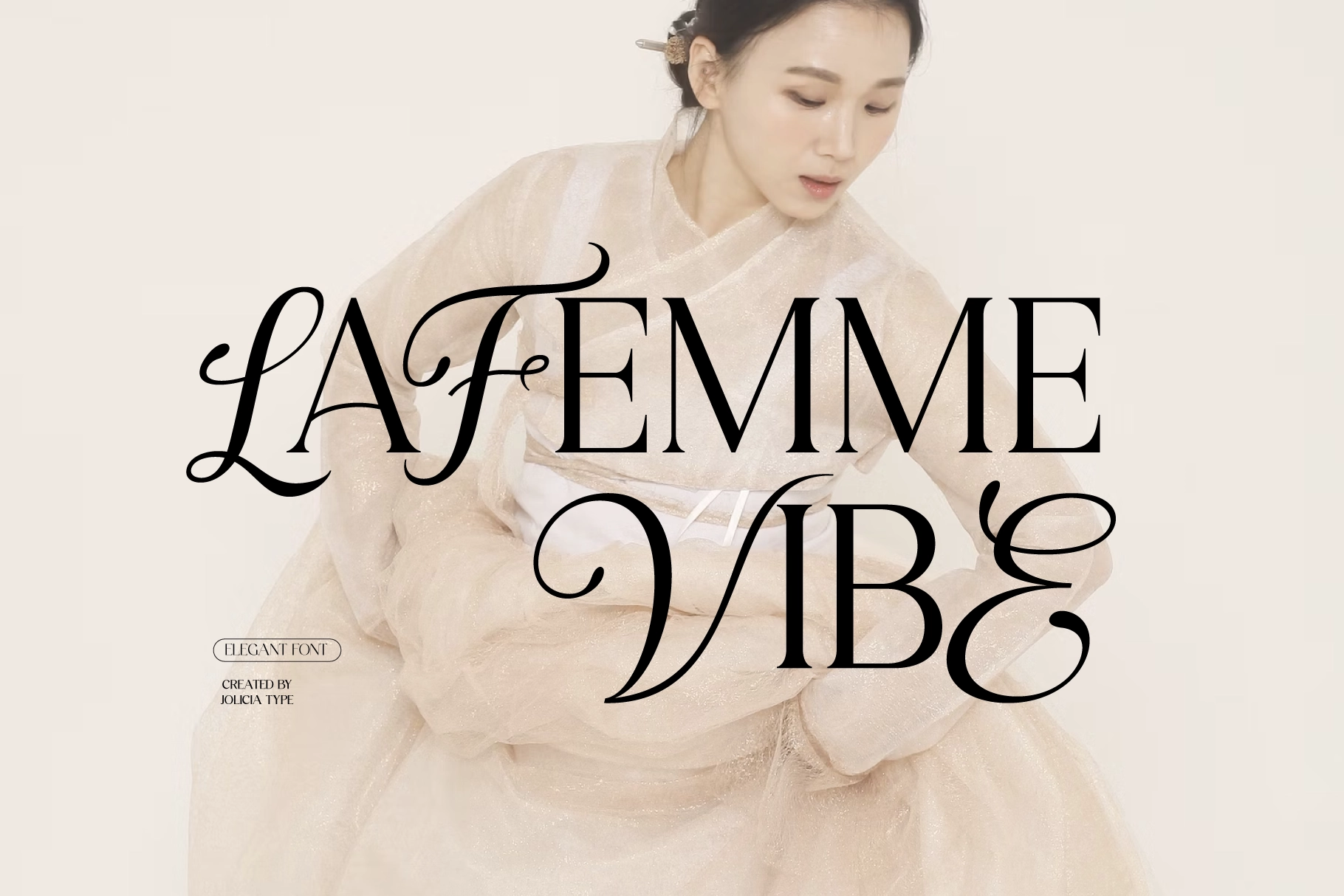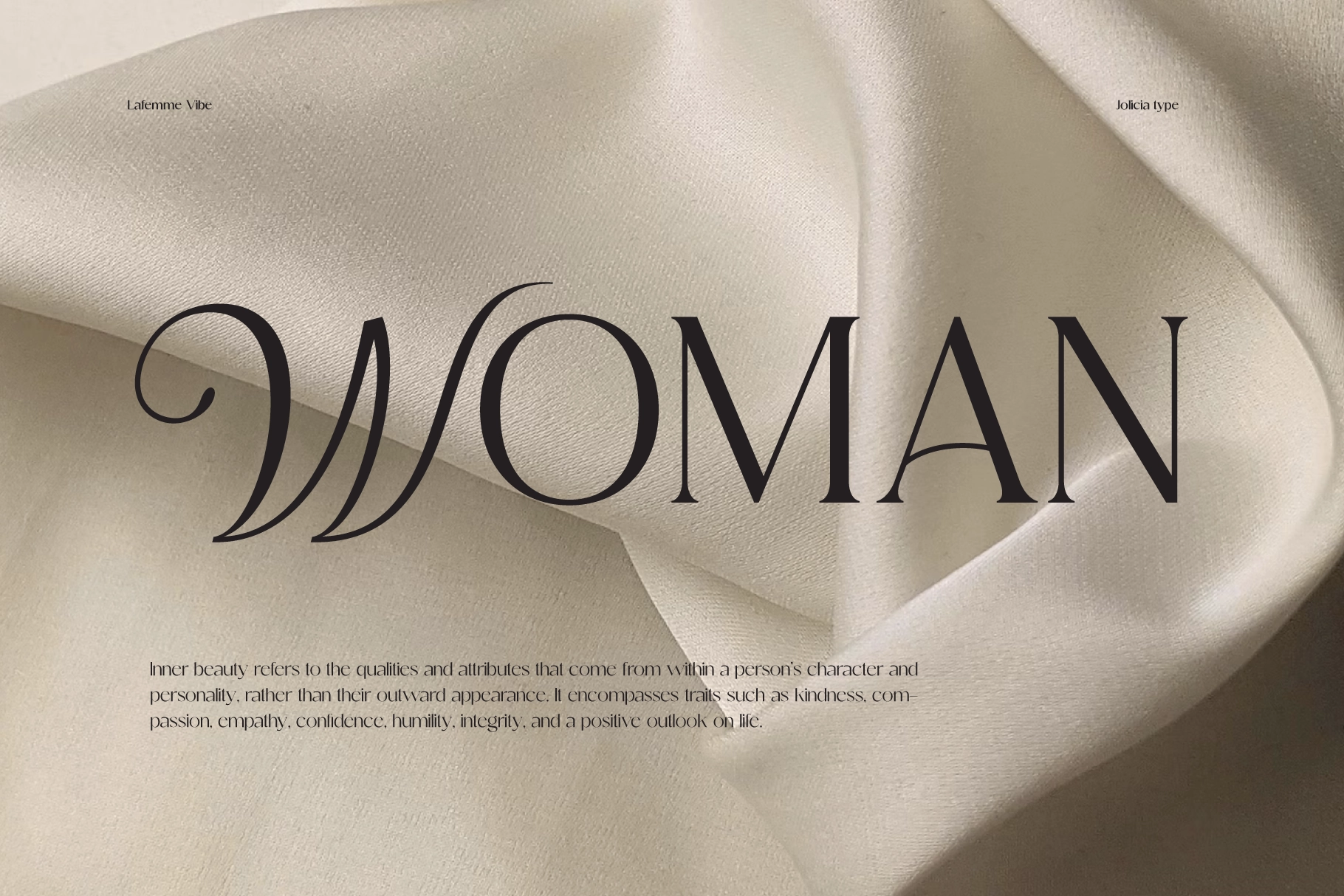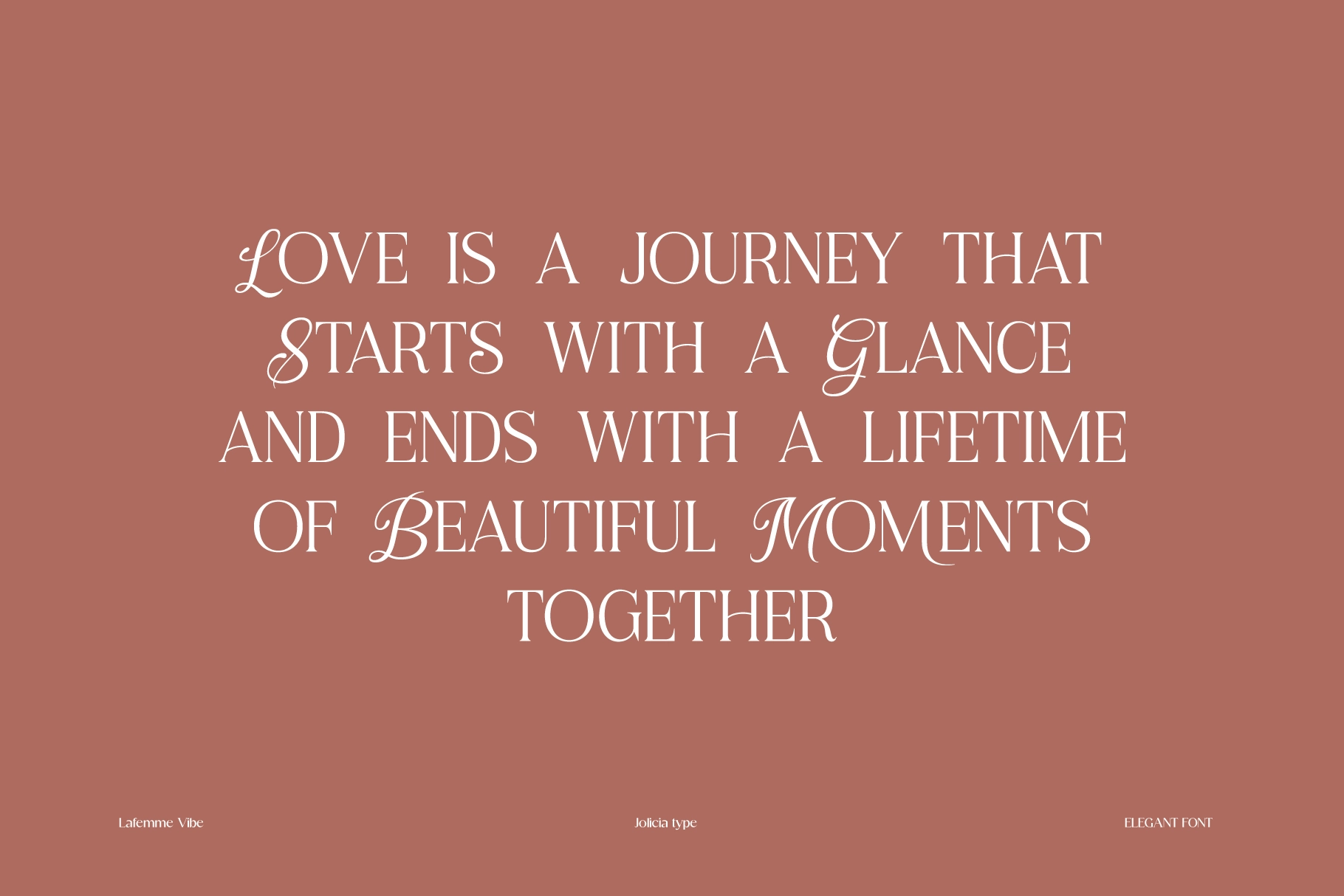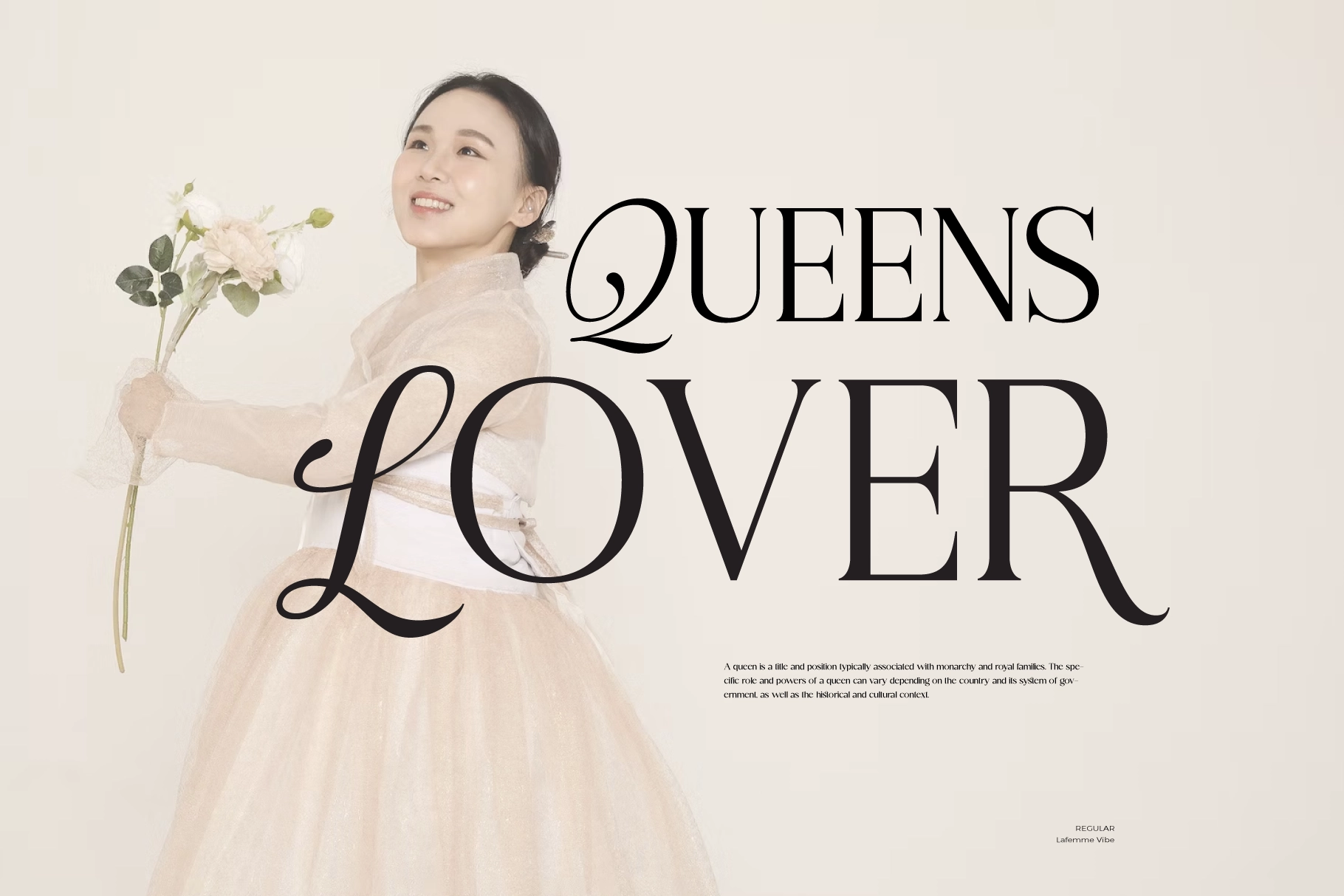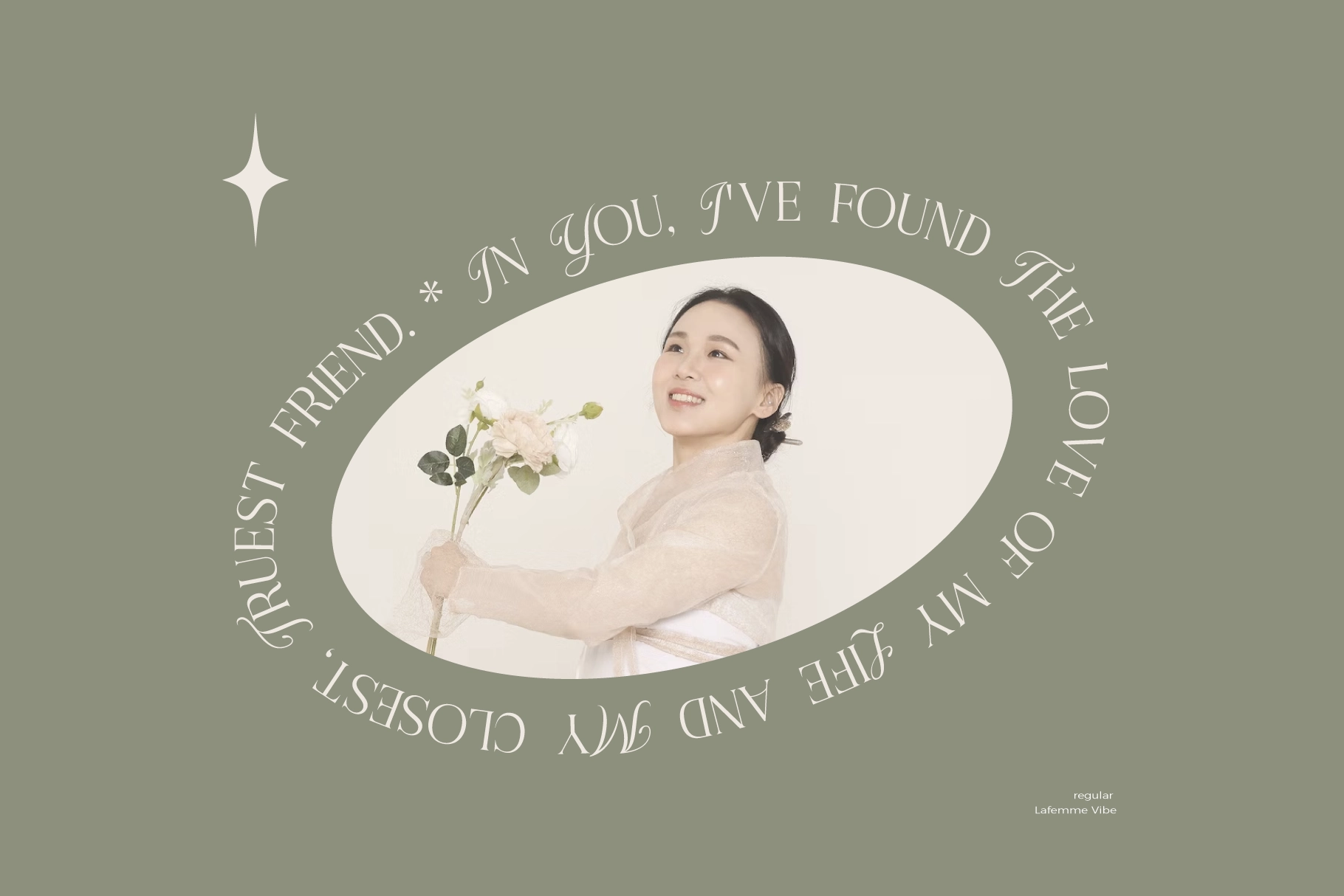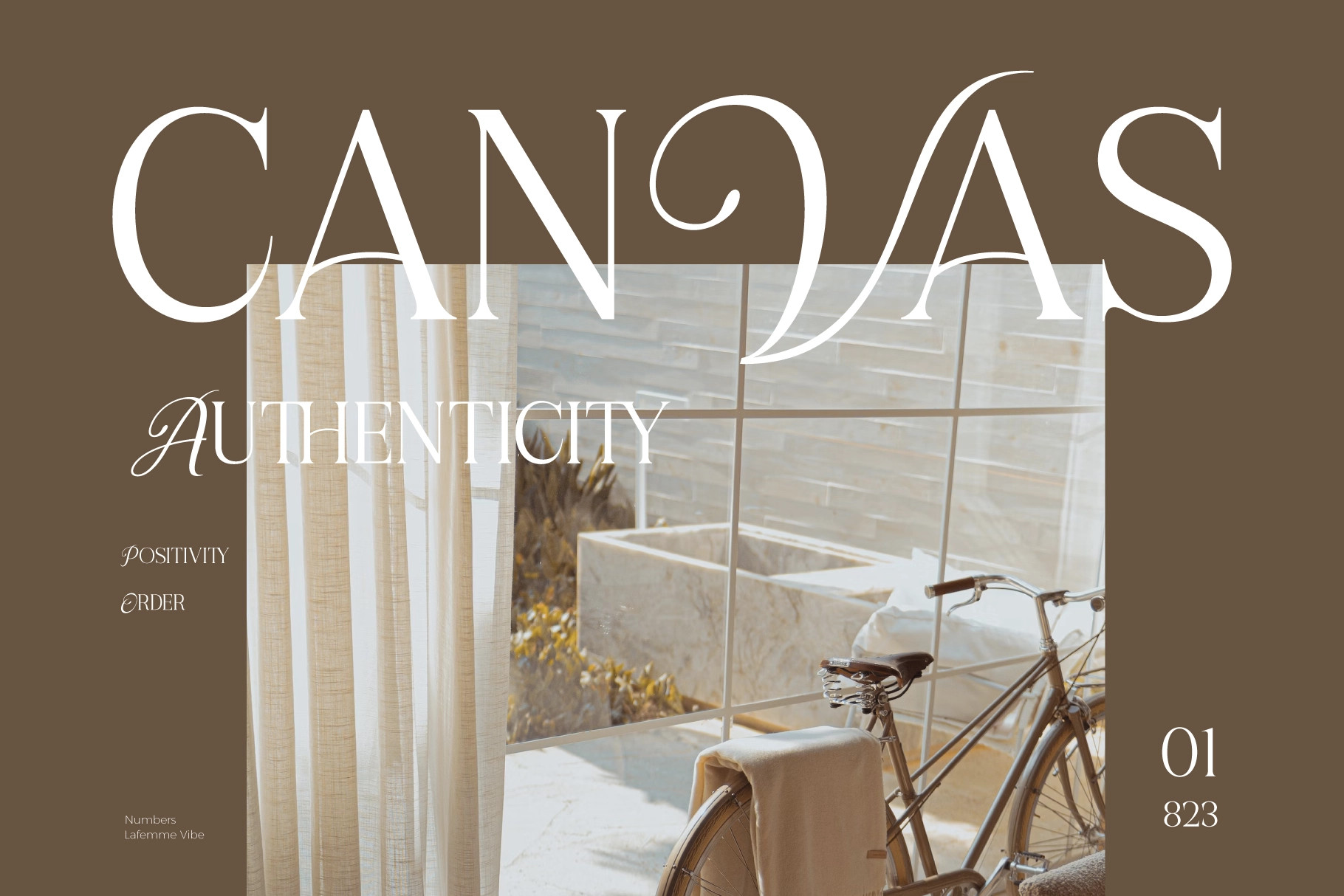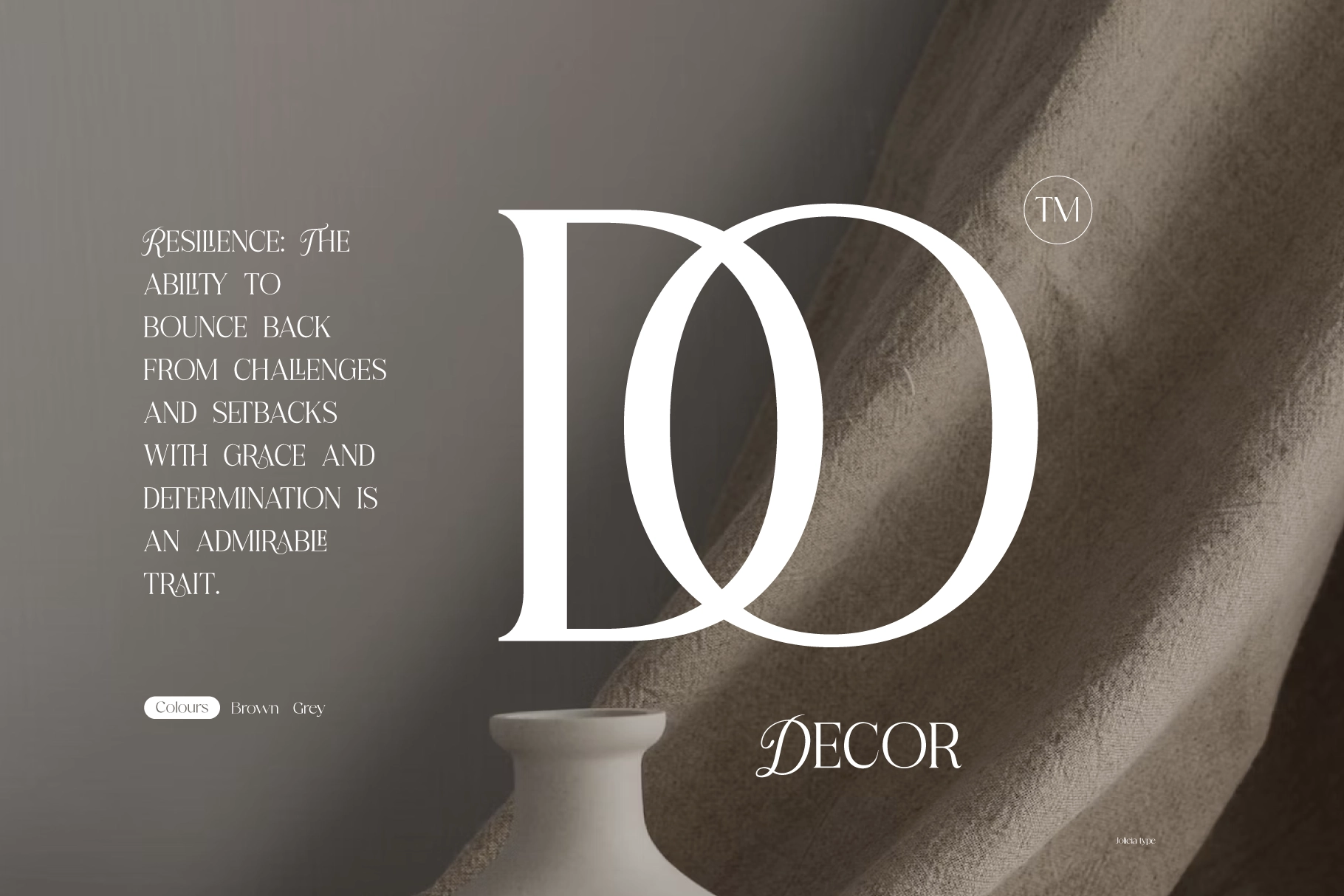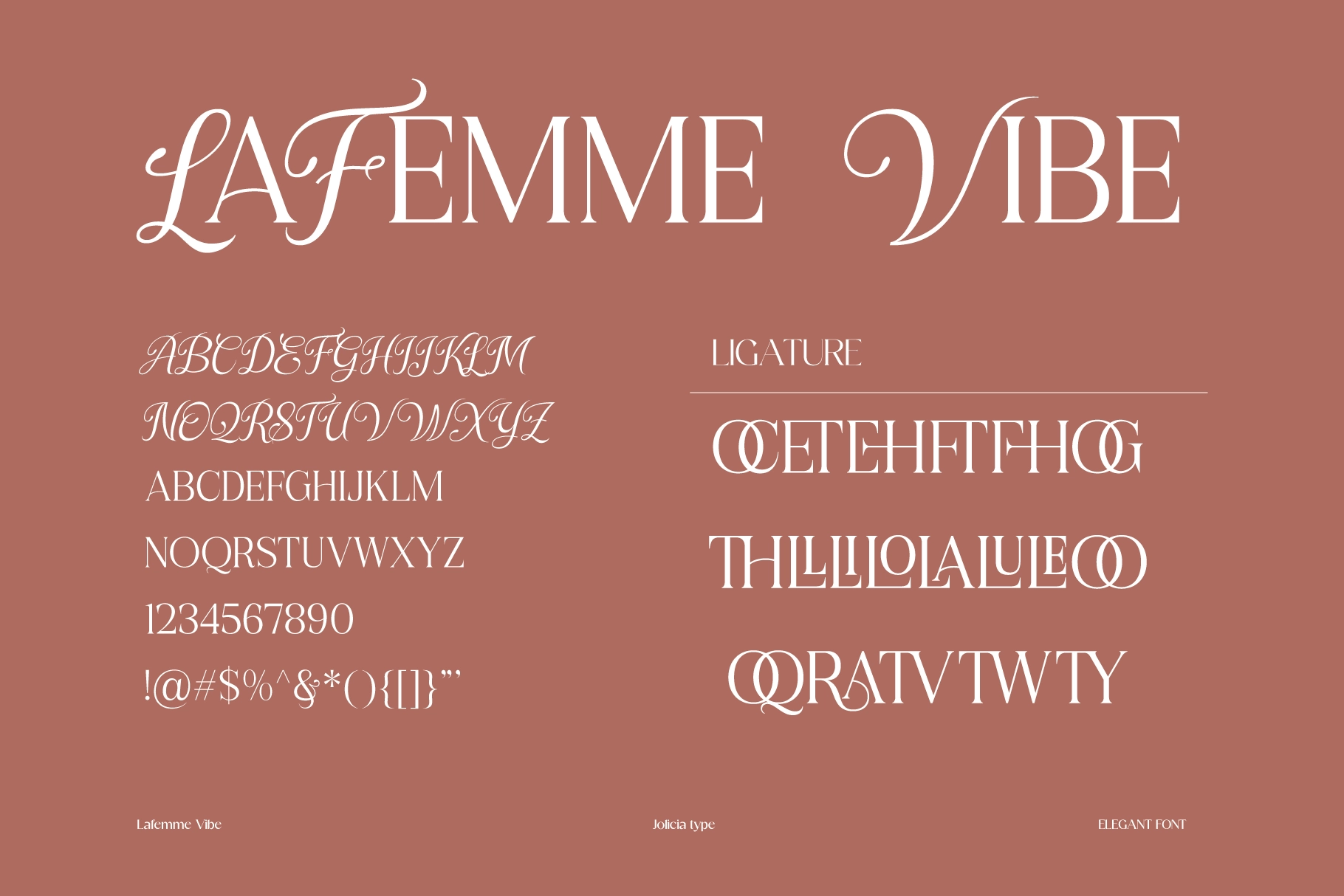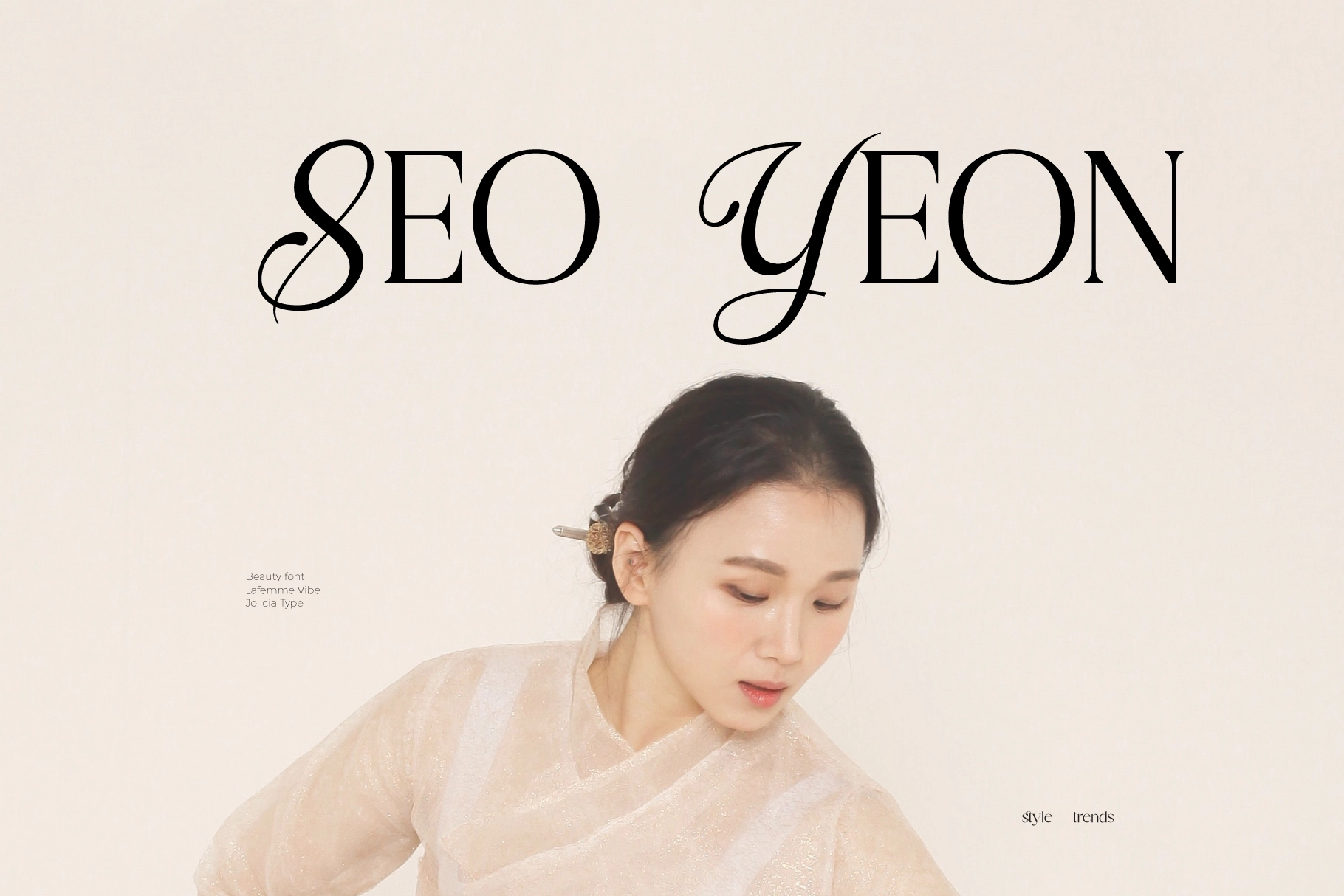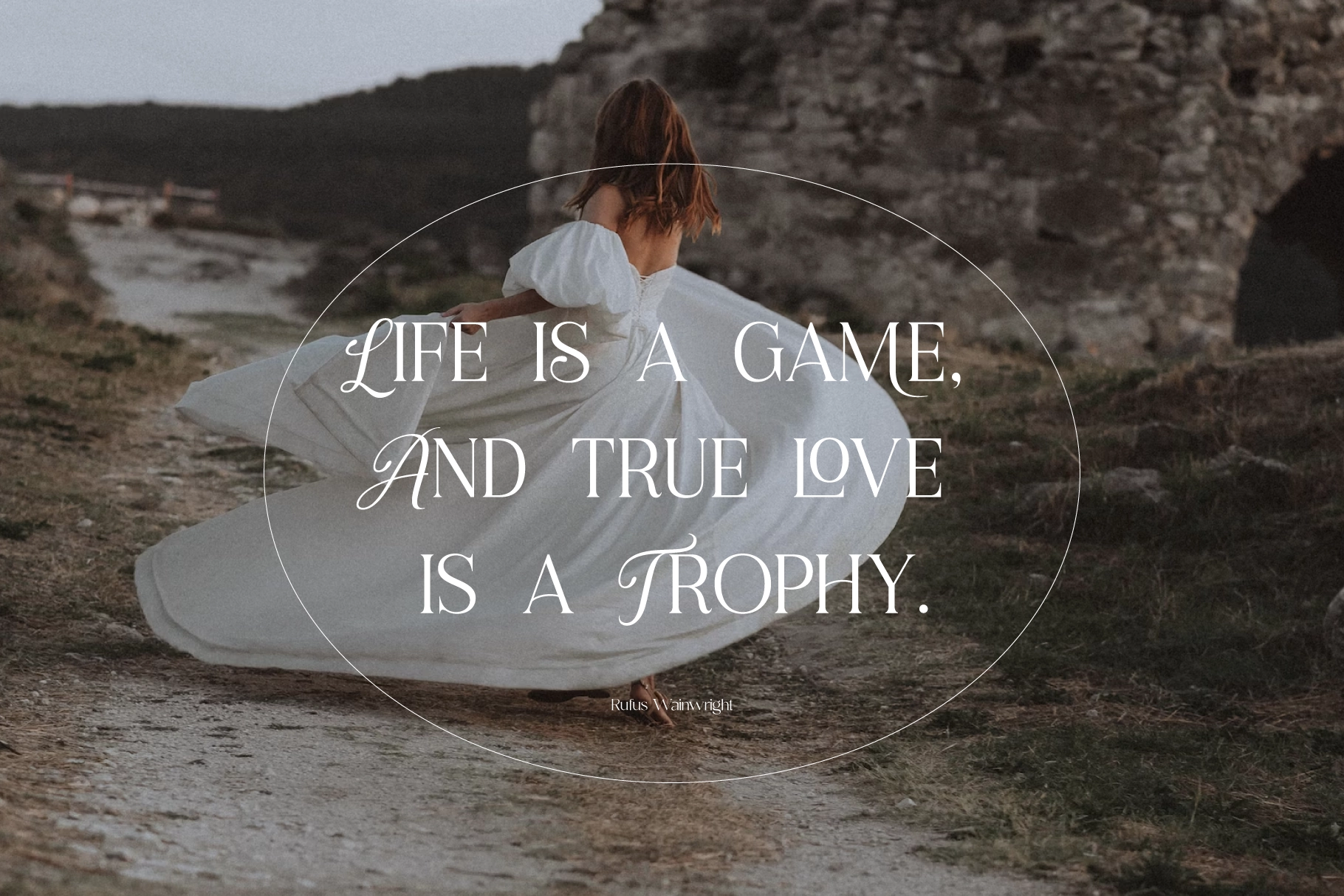
La Femme Vibe - Elegant Serif Font
LaFemme Vibe
LaFemme Vibe, Elegant Serif Font pairs a high-contrast serif structure with sweeping flourishes that recall Art Nouveau posters and the poised glamour of mid-century fashion editorials. It suits bridal branding, perfume packaging, beauty campaigns, magazine mastheads, wedding stationery, and boutique logos, giving each setting a polished, feminine presence with a distinctly ornamental edge.
- Numbers & punctuation
- Elegant ligatures and stylistic alternates
- Signature-style swashes